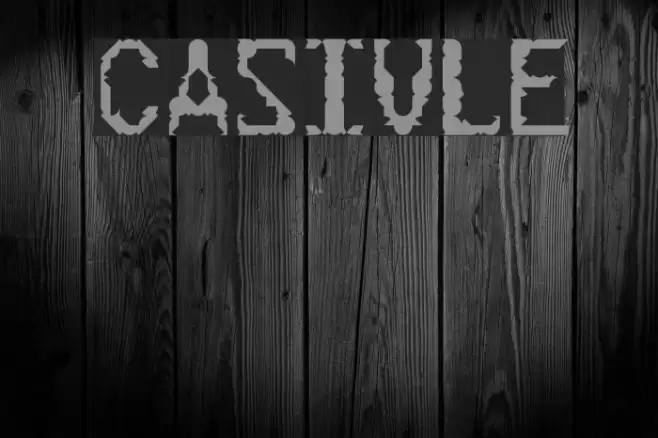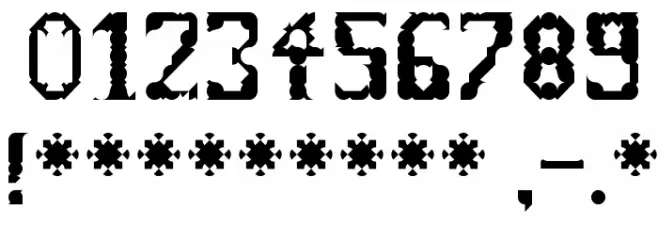
CASivle Font
CASivle Description
This font features a bold and rugged design, characterized by its distressed and eroded edges, giving it a unique and edgy appearance. The characters are blocky and geometric, with a high level of detail that suggests a worn or weathered look. This style is reminiscent of industrial or grunge aesthetics, making it stand out with its bold presence. The uppercase and lowercase letters maintain a consistent style, while the numbers and special characters follow the same distressed theme, ensuring uniformity across all glyphs.
A bold, distressed font with a rugged, industrial look from Uncategorized fonts.
- Proposed Projects: Ideal for projects that require a gritty, industrial feel such as band posters, urban-themed designs, or video game graphics.
- Overall Style: Industrial, Grunge